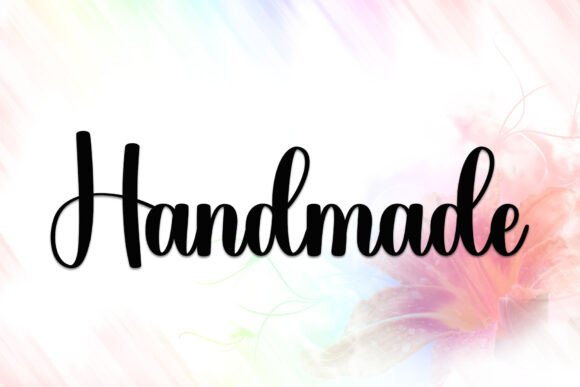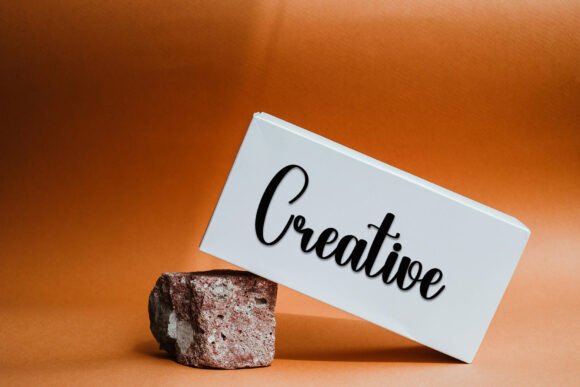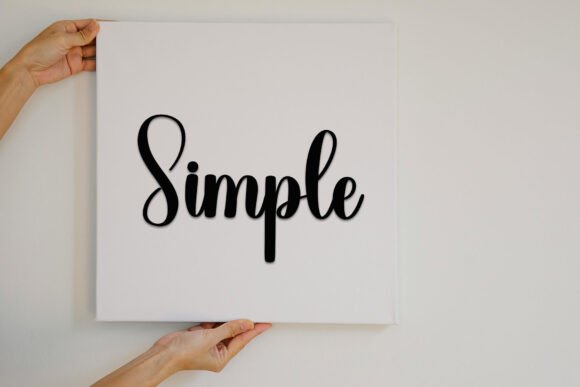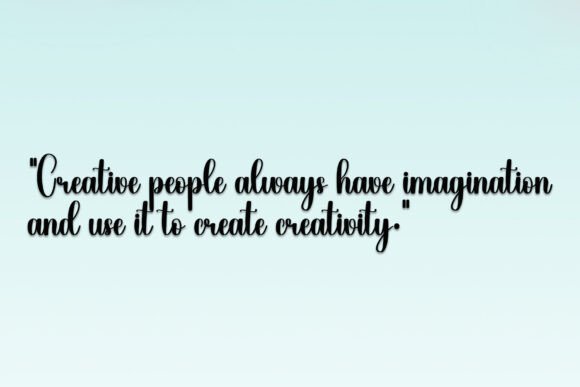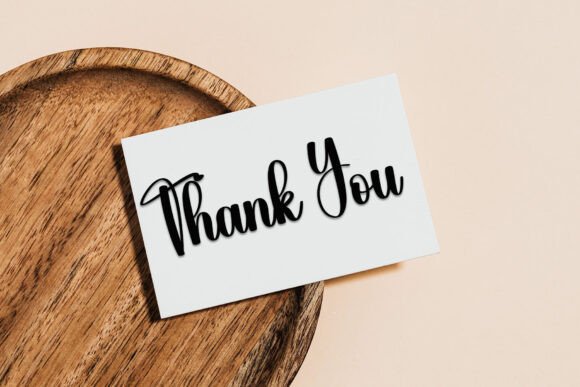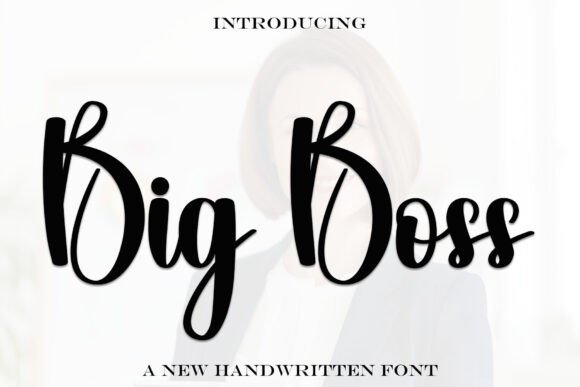
Introducing Big Boss Font: Elevate Your Designs with Elegance and Class
In the world of typography, fonts play a crucial role in conveying the tone and personality of a design. For designers and crafters looking to add a touch of sophistication and elegance to their projects, Big Boss Font is an excellent choice. This trendy handwritten font boasts a contemporary atmosphere and impeccable form, inspired by timeless classic calligraphy.
The Inspiration Behind Big Boss Font
Big Boss Font draws inspiration from the classic calligraphy of the past, reimagined with a modern twist. The result is a font that exudes elegance and refinement, perfect for designs that require a touch of luxury and sophistication. The font’s creator aimed to craft a typeface that would be both stylish and versatile, suitable for a wide range of design applications.
Key Features of Big Boss Font
- Trendy Handwritten Style: Big Boss Font features a handwritten style that is both modern and stylish, making it perfect for designs that require a personal touch.
- Contemporary Atmosphere: The font’s contemporary atmosphere ensures that it will fit right in with modern design trends, while its classic inspiration provides a timeless appeal.
- Impeccable Form: The font’s impeccable form ensures that it is highly legible and visually appealing, making it perfect for use in a variety of design projects.
- Elegance and Class: Big Boss Font is designed to add elegance and class to any design project, making it an excellent choice for designers looking to create sophisticated and refined designs.
Uses of Big Boss Font
Big Boss Font is a versatile typeface that can be used in a wide range of design projects, including:
- Branding and Logo Design: The font’s elegant and refined style makes it perfect for use in branding and logo design, where a sophisticated image is crucial.
- Wedding and Event Design: Big Boss Font is an excellent choice for wedding and event design, where a touch of elegance and sophistication is often required.
- Packaging Design: The font’s modern and stylish appearance makes it suitable for use in packaging design, where standing out on store shelves is essential.
- Digital Design: Big Boss Font can be used in a variety of digital design projects, including website design, social media graphics, and more.
Tips for Using Big Boss Font
To get the most out of Big Boss Font, here are a few tips to keep in mind:
- Use it Sparingly: Big Boss Font is a statement font, so use it sparingly to avoid overwhelming your design.
- Pair it with a Simple Font: Pair Big Boss Font with a simple font to create visual interest and hierarchy in your design.
- Experiment with Colors: The font’s elegant style looks great in a variety of colors, so don’t be afraid to experiment and find the perfect hue for your design.
Big Boss Font is a stylish and elegant typeface that is perfect for designers and crafters looking to add a touch of sophistication and refinement to their design projects. With its trendy handwritten style, contemporary atmosphere, and impeccable form, this font is sure to elevate your designs and make them stand out. Whether you’re working on a branding project, wedding design, or packaging design, Big Boss Font is an excellent choice.